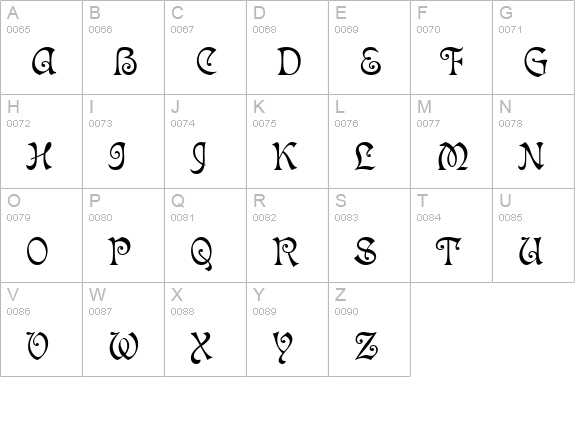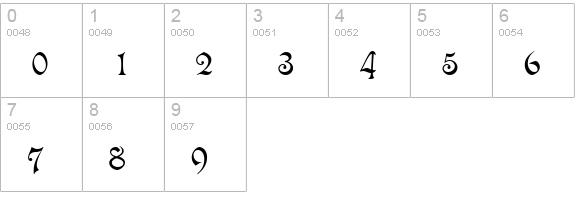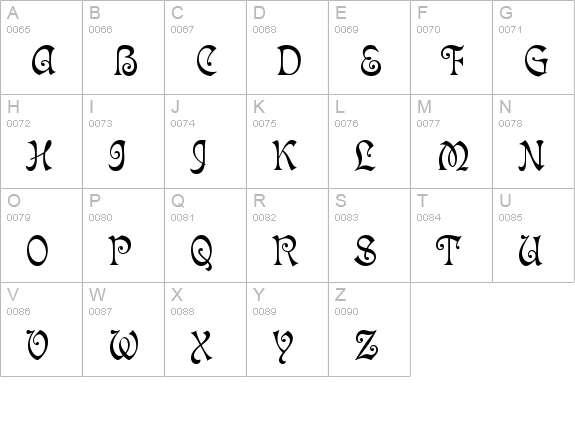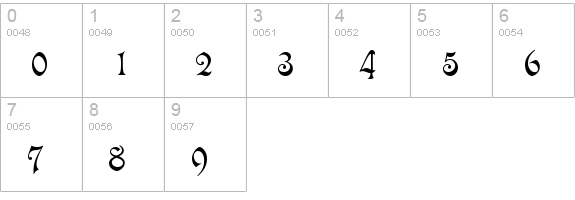
Isabella-Decor Font Details
Isabella-Decor font is a stunningly beautiful and elegant typeface that will add a touch of sophistication to any design project. Its intricate and delicate letterforms are perfect for creating captivating headlines, invitations, logos, and more. With its graceful curves and ornate details, Isabella-Decor font exudes a timeless charm that is sure to impress. Each letter is meticulously crafted to evoke a sense of luxury and refinement, making it the ideal choice for high-end branding and editorial designs. What sets Isabella-Decor font apart is not only its aesthetic appeal but also the fact that it is available for free. Yes, you read that right – this exquisite font can be downloaded for free at FontsMarket.com. It's a rare opportunity to add such a high-quality font to your collection without spending a dime. Whether you're a professional designer or an enthusiastic hobbyist, Isabella-Decor font is a must-have. Its versatility and beauty make it suitable for a wide range of creative projects, from wedding invitations to fine art prints. Don't miss out on the chance to elevate your designs with this exceptional font – get your free download of Isabella-Decor font today at FontsMarket.com!